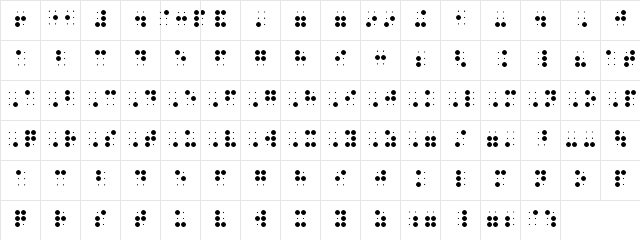
QBraille Regular
Design Context for QBraille Typeface
QBraille offers clean, dependable letterforms without strong stylistic allegiance, making it a practical choice for designers who need flexibility.